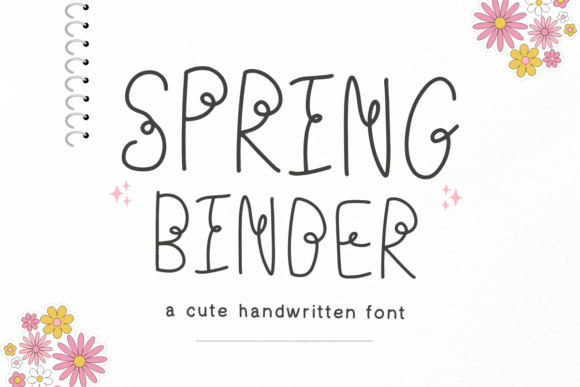
Unleash your creativity with Spring Binder, the whimsical handwritten font that captivates hearts with its playful charm. Dive into a world of imagination and let your designs bloom.
With Spring Binder, simplicity meets elegance, offering a touch of whimsy to your creations. Its enchanting curves and delicate strokes bring life to your words, transforming them into captivating works of art.
Explore endless possibilities with Spring Binder's versatility. Whether you're crafting personalized greeting cards, creating eye-catching social media posts, or designing charming invitations, this font will elevate your projects to new heights.
As a versatile font, Spring Binder gracefully adapts to a myriad of applications, from playful children's crafts to professional presentations. Its adaptability knows no bounds, making it a perfect choice for teachers, artists, and designers alike.
Harness the power of Spring Binder to turn ordinary text into extraordinary focal points. Its magnetic presence will draw attention to your designs, leaving a lasting impression on your audience.
Step into a world of enchantment with Spring Binder, where creativity flourishes and designs come alive. Embrace the beauty of handwritten charm and let your imagination soar.